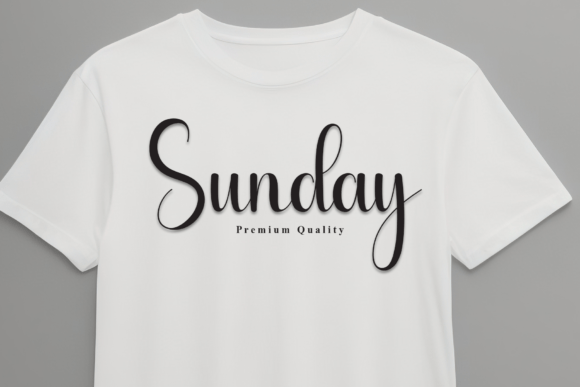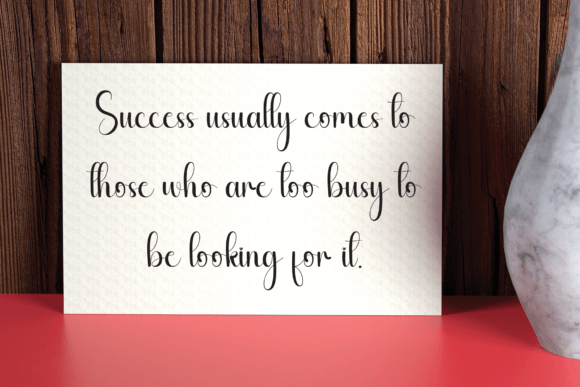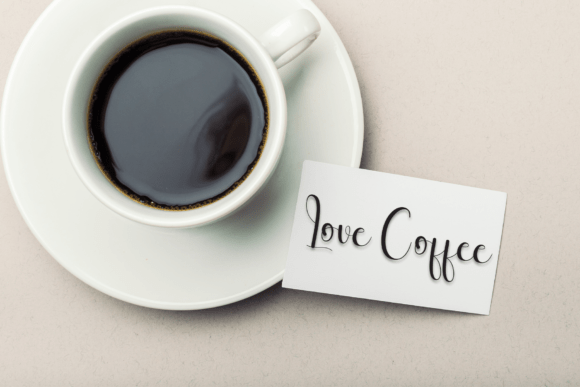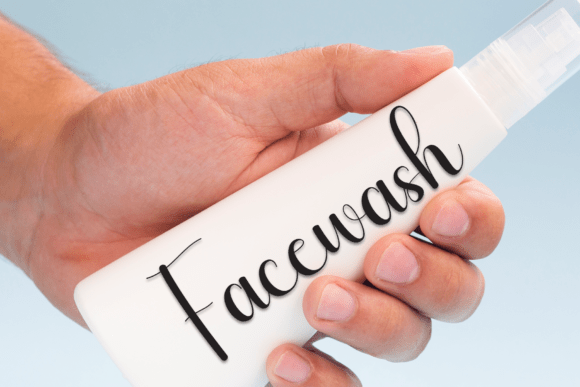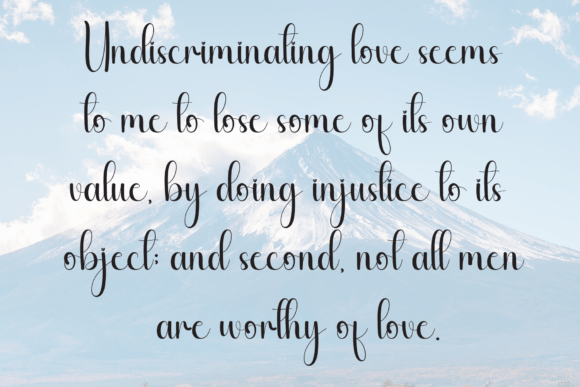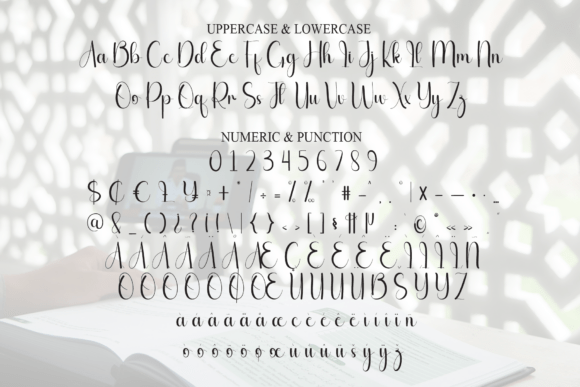
Introduction to Smart Homework Font
As a designer, there’s nothing quite like the rush of finding the perfect font for a project. Remember that one time you spent hours scouring the internet for the perfect handwritten script, only to finally stumble upon it and have your design come to life? That’s exactly what we’re excited to share with you today – a game-changing font that’s about to become your new go-to for creative projects.
Meet the Smart Homework Font, a stylish and elegant typeface that’s as versatile as it is beautiful. Its smooth, flowing strokes create a natural and sophisticated feel that’s perfect for branding, invitations, and just about any design project that requires a personal touch.
Key Features of Smart Homework Font
• High-quality design: Smart Homework Font offers a professional and clean appearance, making it suitable for various creative projects.
• Perfect for educational projects: The font’s design is specifically tailored for educational projects, making it an ideal choice for homework, assignments, and presentations.
Honest Review: Smart Homework Font
As a designer, I’ve had the chance to work with various fonts for creative projects. The Smart Homework Font caught my attention due to its promise of high-quality, easy-to-use design resource. I was curious to see if it lived up to its expectations.
• The font is clean and easy to read, making it perfect for academic and professional use.
• The font’s high quality is evident in its crisp lines and clear typography.
• The font’s character set is limited, making it less suitable for projects that require a wide range of characters.
• The font’s customization options are limited, which may be a drawback for designers who like to fine-tune their fonts.
Overall, the Smart Homework Font is a solid choice for designers working on academic or professional projects. While it has some limitations, its high-quality design and convenient free download option make it a valuable design resource.
The Smart Homework Font is perfect for educational presentations, documents, and websites. It’s also great for creative projects, such as brochures and flyers.